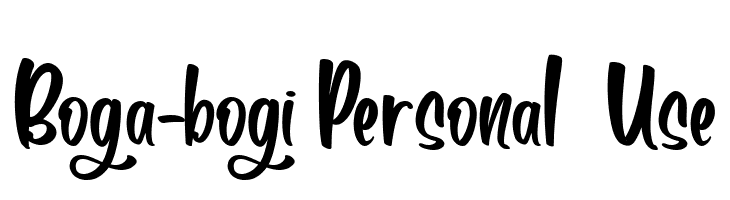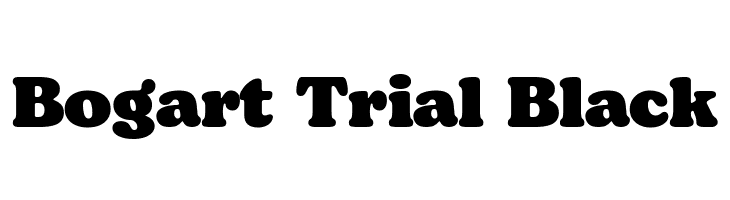
A flowing, cursive script font with a refined and elegant style.
A bold, geometric font with a three-dimensional, architectural style.
A bold, flowing script font with a playful and elegant style.
An elegant script font with flowing, connected strokes and graceful curves.
A bold, geometric font with outlined characters and a modern, industrial style.
A classic, medieval-inspired font with sharp, angular lines and intricate detailing.
A bold, decorative font with vintage flair and rounded serifs.
A bold, decorative font with rounded serifs and consistent spacing, perfect for headlines.
Elegant cursive script font.
A bold, distressed 3D font with a rugged, textured appearance.